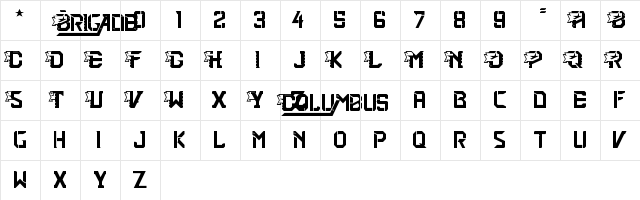
2nd Brigade Regular
| Designer | Bill Walker |
Design Context for 2nd Brigade Typeface
2nd Brigade takes a measured approach to typography — its balanced proportions and neutral character make it a reliable workhorse for both digital and print work.